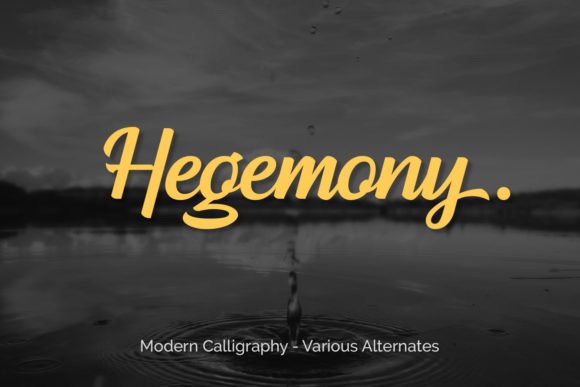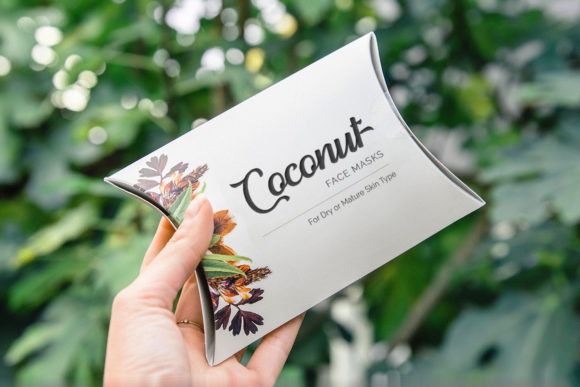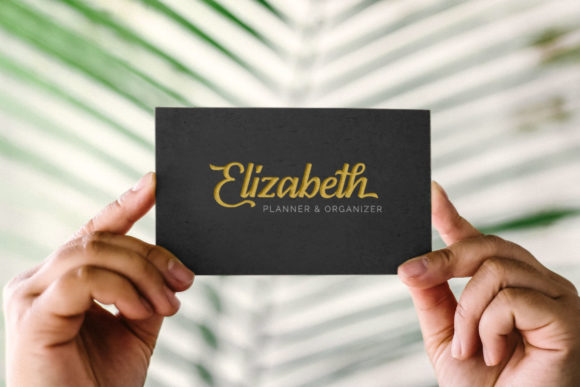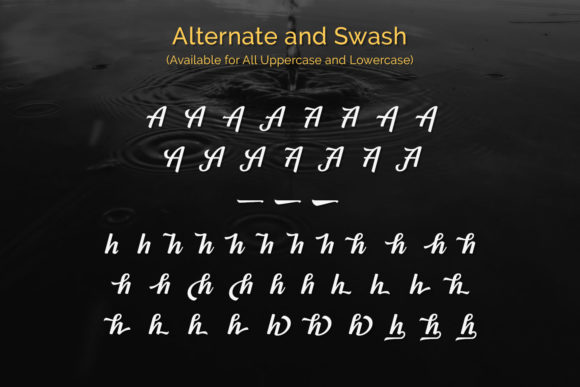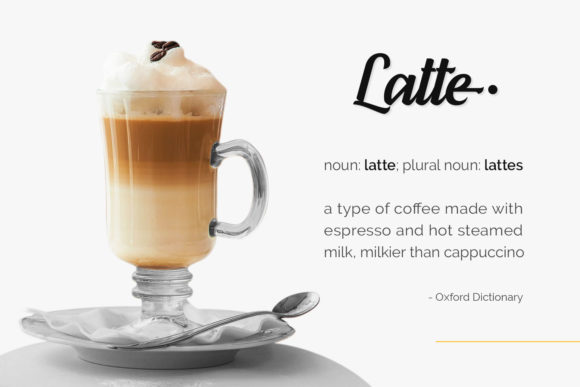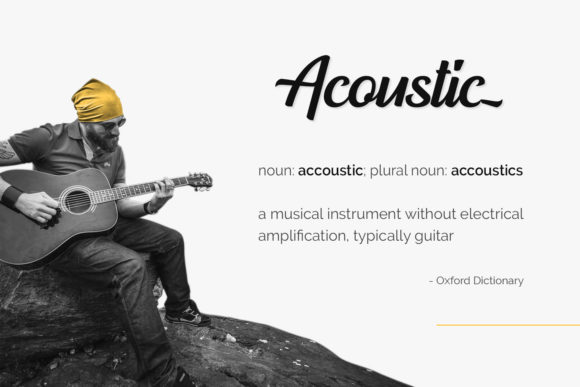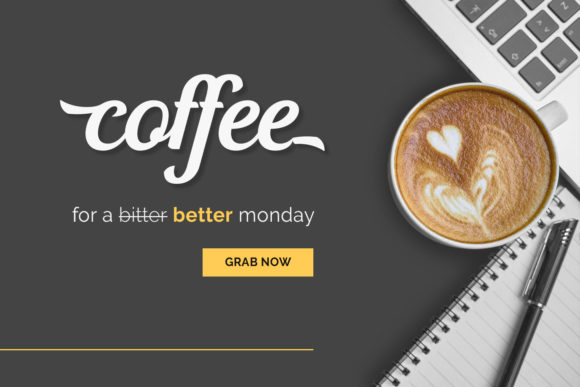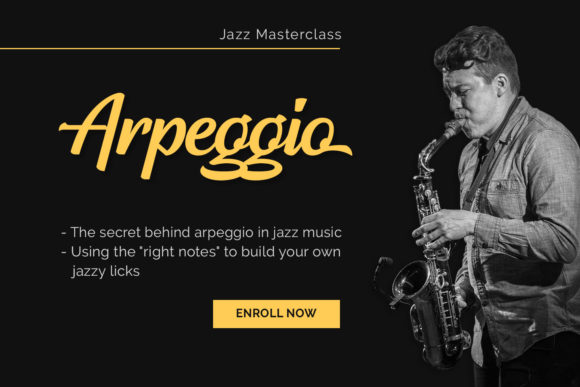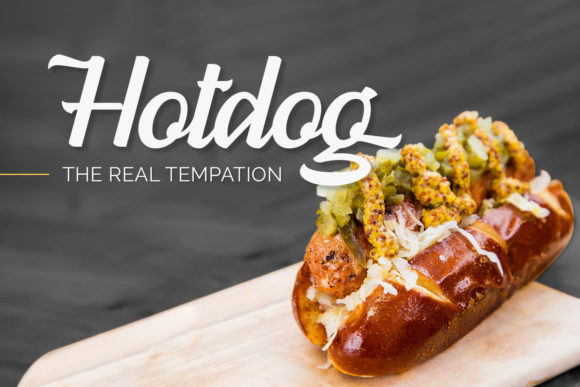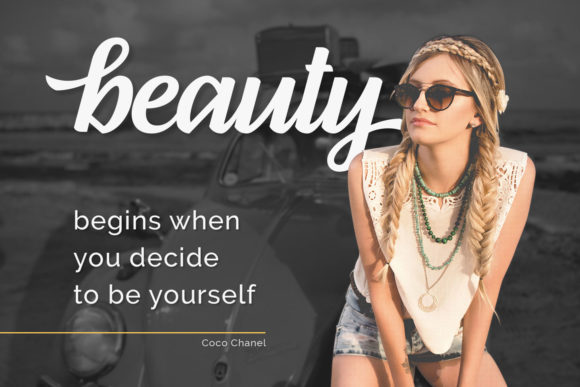
Hegemony Font
About Hegemony Font
Hegemony is an energetic, modern calligraphy typeface featuring heavy and clean strokes. Its clean appearance will easily turn any design project into a true eye-catcher!